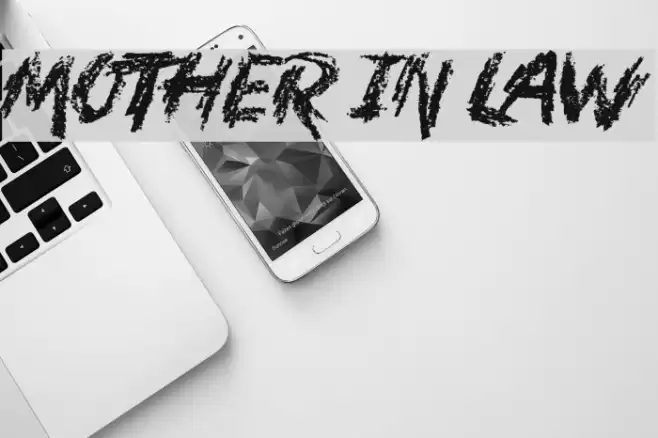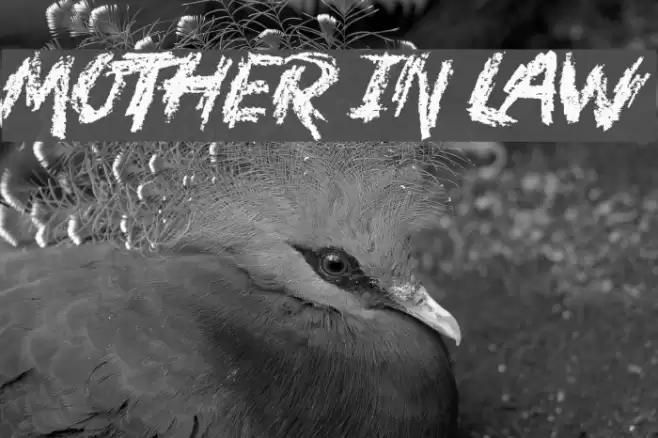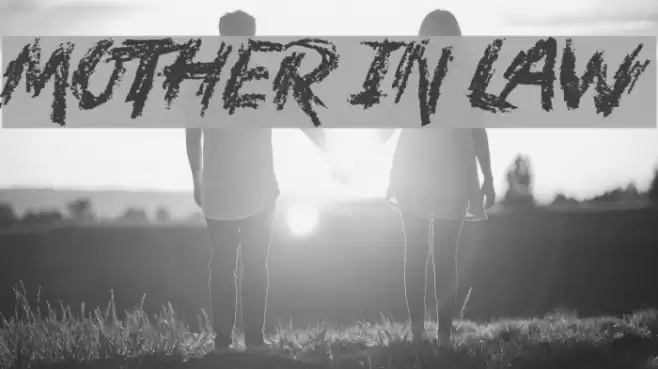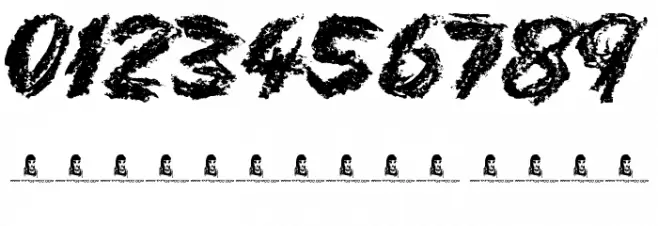
Mother In Law Font
Mother In Law Description
This font features a bold and dynamic style with a rough, textured appearance that mimics the look of brush strokes or graffiti. The characters are highly stylized, with sharp angles and irregular edges, giving it an energetic and rebellious feel. The uppercase letters are particularly striking, with a sense of movement and intensity. The numbers and special characters maintain this rugged aesthetic, ensuring consistency across all elements. This font is ideal for projects that require a bold statement or an edgy, urban vibe.
A bold, textured font with a graffiti-like, energetic style from Uncategorized fonts.
- Proposed Projects: Perfect for street art designs, music album covers, edgy posters, and urban-themed branding.
- Overall Style: Modern, Urban